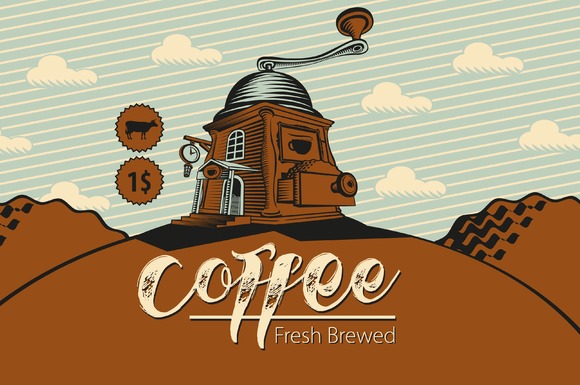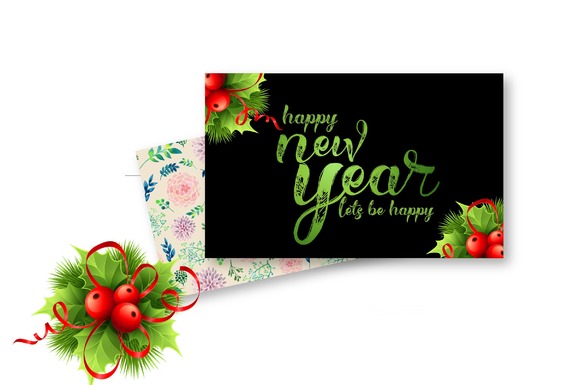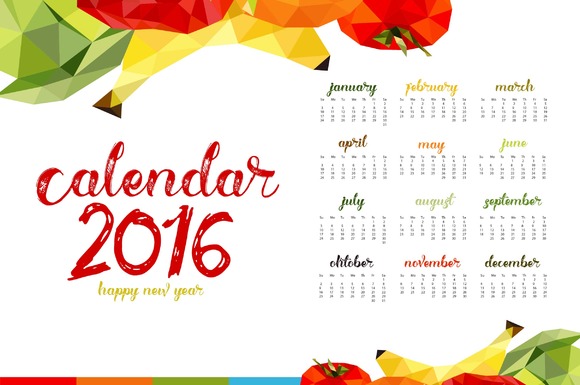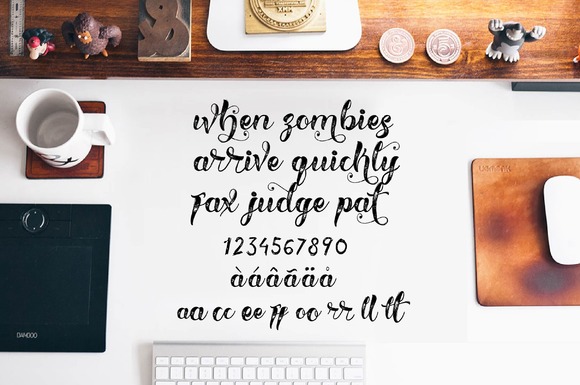
Hellvina Font
About Hellvina Font
Hellvina Hand Script is a modern Calligraphy typeface. It can be used for various purposes such as headings, logos, invitations, t-shirt designs, greeting cards, posters, labels, book covers, brochures, and much more!